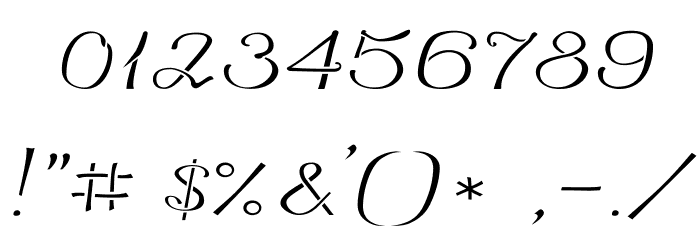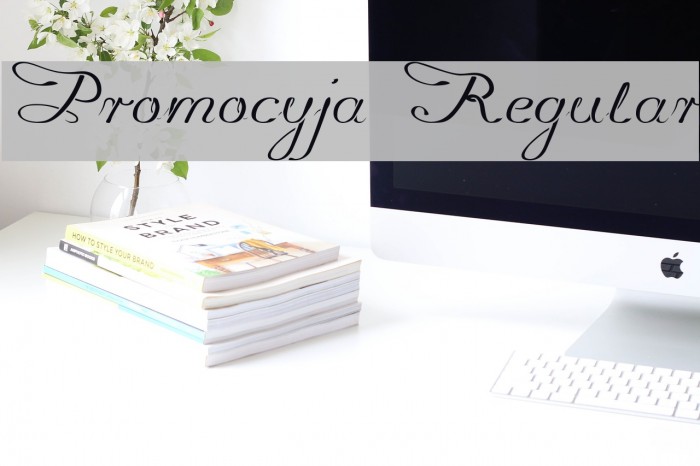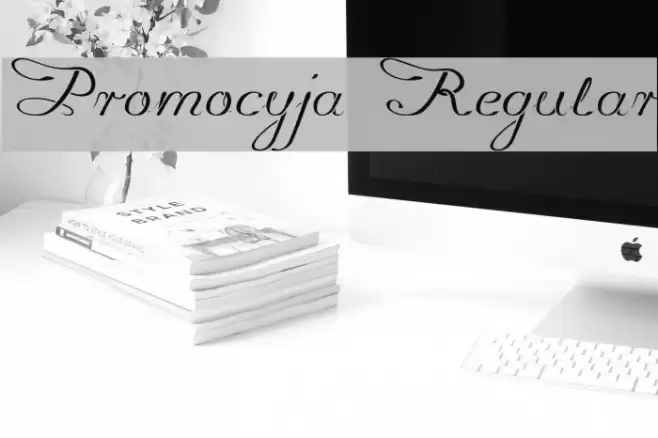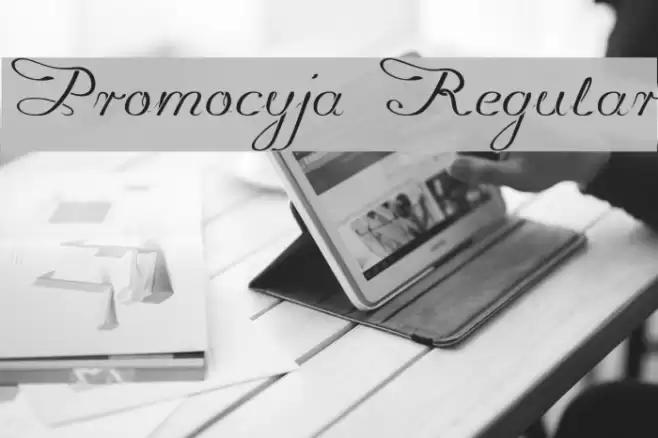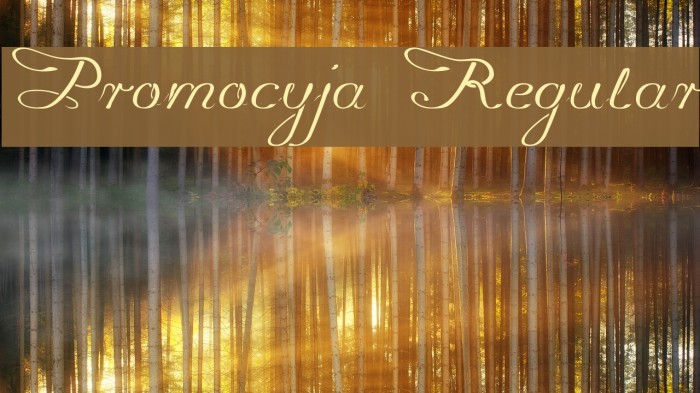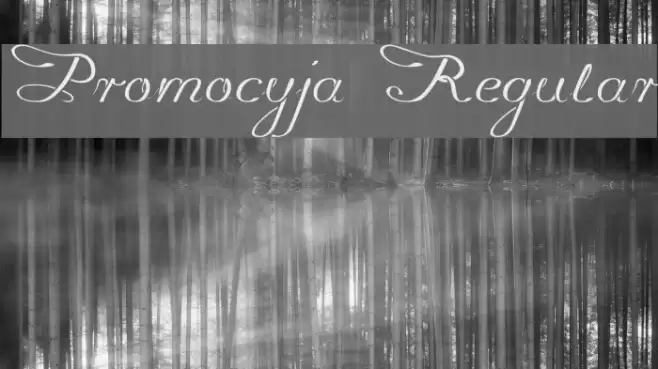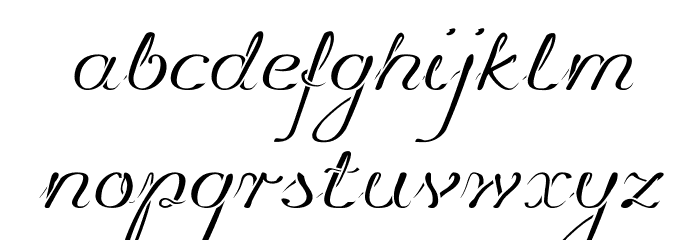
Promocyja Regular Font
Promocyja Regular Description
This font features an elegant and flowing script style, characterized by its intricate curves and loops. The uppercase letters are ornate, with decorative swashes that add a touch of sophistication. The lowercase letters maintain a consistent flow, enhancing readability while preserving the font's artistic flair. Numbers and special characters are designed to match the overall aesthetic, ensuring a cohesive look across all text elements. The font's delicate lines and graceful strokes make it suitable for projects that require a touch of elegance and refinement.
| Overall Style | Elegant |
| Use Case | Headlines, Invitations, Branding |
| Proposed Projects | Ideal for wedding invitations, elegant branding, luxury product packaging, and decorative headlines. |